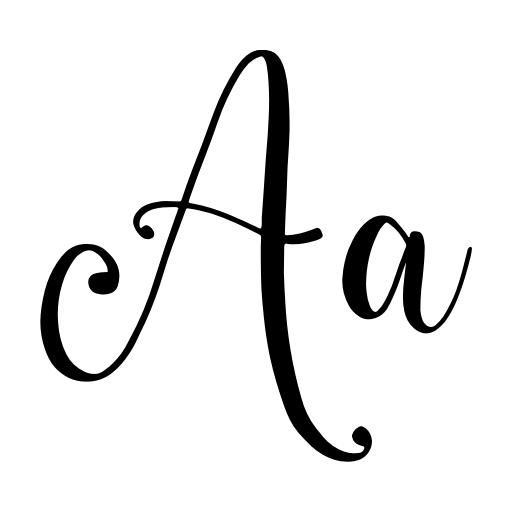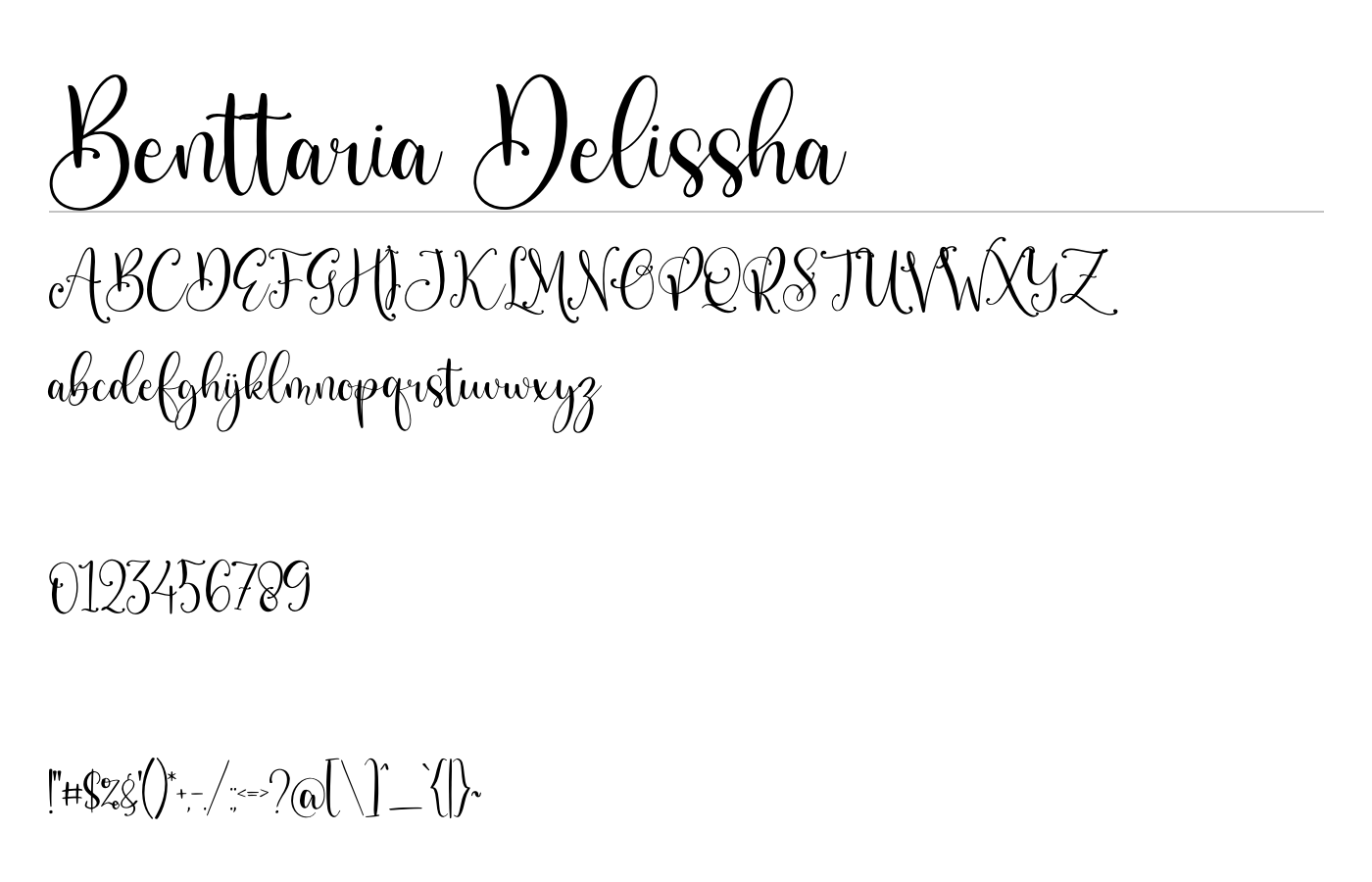
Benttaria Delissha is an elegant script font with flowing, delicate strokes and decorative swirls that give it a charming, handcrafted feel. Its slender weight and tall, graceful letterforms make it perfect for feminine branding, invitations, and stylish packaging, where a touch of sophistication and warmth is desired. This font shines in display uses like logos and headlines, adding a romantic and artistic flair to any design.
Benttaria Delissha Font
About Benttaria Delissha Font